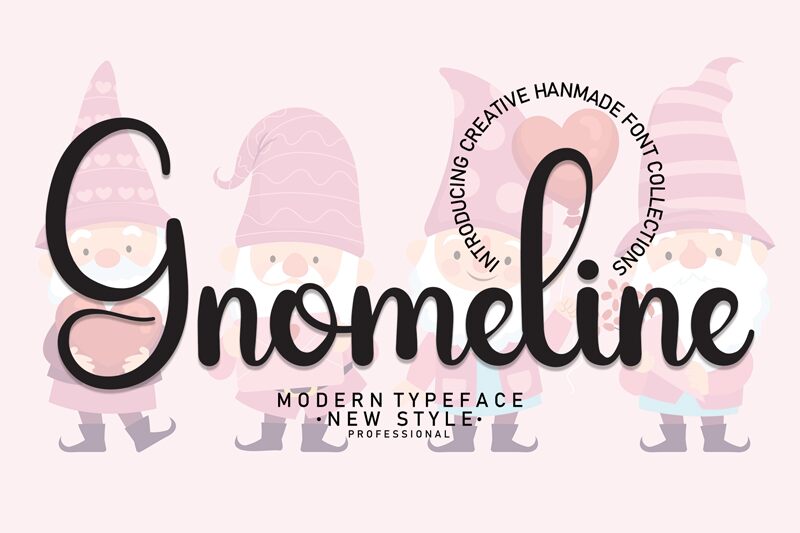
Gnomeline
Gnomeline, designed by Scratchones, exudes a warm, personal touch with its handwritten style that invites a sense of intimacy and authenticity. The semi-light weight of the font adds a delicate and airy quality to its aesthetic, making it both approachable and distinctly stylish. Its flowing curves and subtle variation in stroke thickness evoke the charm of classic calligraphy while maintaining modern sensibility.
This versatile font lends itself beautifully to personal branding, invitation design, and creative editorial work where a touch of handcrafted elegance is desired. Gnomeline's unique character ensures that it stands out in various applications while remaining highly legible and engaging to the reader.